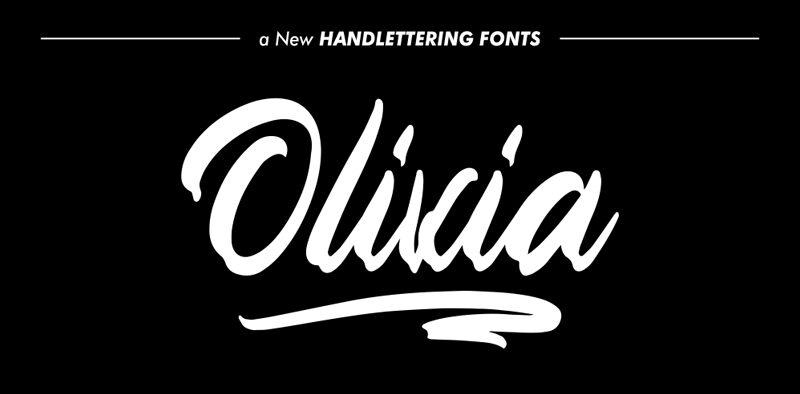
Olivia is a captivating handwritten font that exudes elegance and charm. Its flowing, cursive strokes emanate a sense of effortless sophistication, making it an alluring choice for a wide range of design applications. From high-end branding and editorial layouts to invitations and greeting cards, this font's distinctive personality lends itself seamlessly to projects that demand a touch of sophisticated whimsy.
Olivia's fluid, natural-looking letterforms effortlessly capture the essence of handwritten calligraphy, creating a warm and personalized aesthetic that is sure to captivate audiences.
Olivia